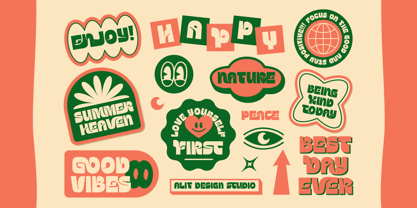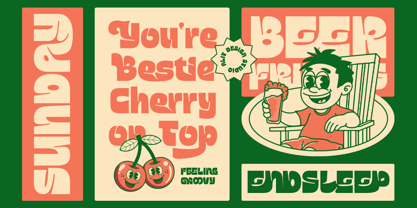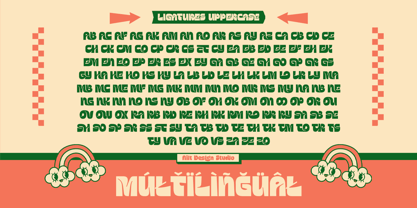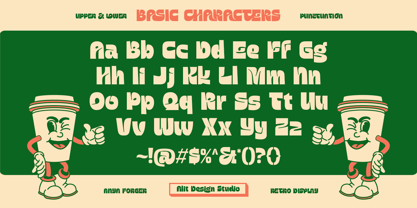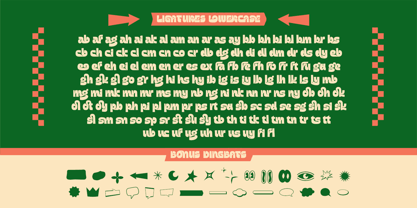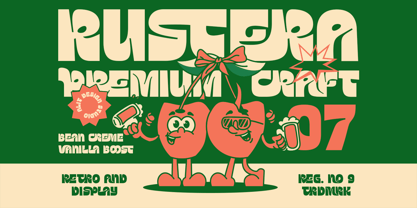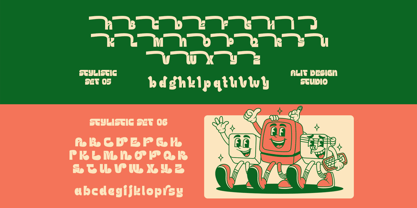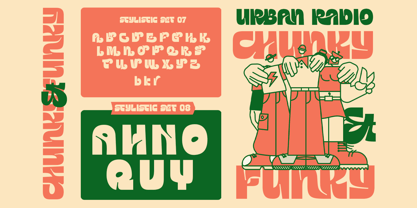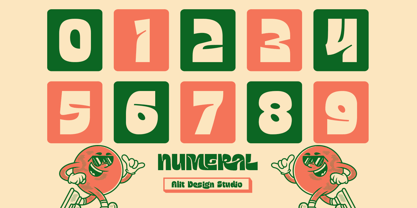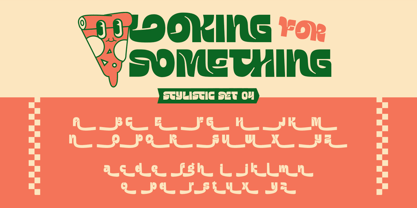
Anya Forger
by Alit Design
The Anya Forger Font Family was designed by Alit Suarnegara and published by Alit Design. Anya Forger contains 1 styles. More about this family
Anya Forger: The Ultimate Psychedelic Retro Display Font Anya Forger isn’t just a font; it’s a time machine to the grooviest era of design. Heavily inspired by the bold, liquid-like aesthetics of the 1970s and infused with a modern "Rubber Hose" cartoon vibe, this font is engineered to turn heads and spark joy. Created by Alit Design Studio, it strikes the perfect balance between nostalgic charm and contemporary versatility. ✨ Why You’ll Love It Anya Forger is a powerhouse of personality. Its chunky, fluid letterforms and playful silhouettes make it the go-to choice for designers looking to inject energy and a "funky" spirit into their projects. Whether you're designing for a lifestyle brand, a music festival, or eye-popping social media content, this font delivers maximum impact. 🎨 Massive Variety & Customization With a staggering 1,091 Glyphs, Anya Forger offers an unparalleled level of creative freedom. It’s packed with OpenType features that allow you to customize every word: 8 Stylistic Sets: From sleek retro curves to wild, elongated swashes, you can transform the look of your text with a single click. Unique Ligatures: Dozens of custom uppercase and lowercase pairings ensure your typography looks like custom hand-lettering. Alternates Galore: Swap out characters to find the perfect fit for your layout. Multilingual Support: Ready to go global with extensive character support. 🚀 Perfect For: Branding & Logos: Create an iconic, memorable identity. Apparel Design: Ideal for t-shirts, hoodies, and vintage-style merch. Packaging: Make your product stand out on the shelf with bold, "bestie-worthy" vibes. Poster Art: Perfect for music event posters, menus, and "Feeling Groovy" headlines. Social Media: Create stop-the-scroll content with a distinct retro-modern flavor. 📦 What's Included? Uppercase & Lowercase basic characters Numbers & Punctuation Hundreds of Stylistic Alternates & Ligatures > "Anya Forger is where retro-funk meets modern precision. It’s thick, it’s chunky, and it’s unapologetically fun."
Designers: Alit Suarnegara
Foundry: Alit Design